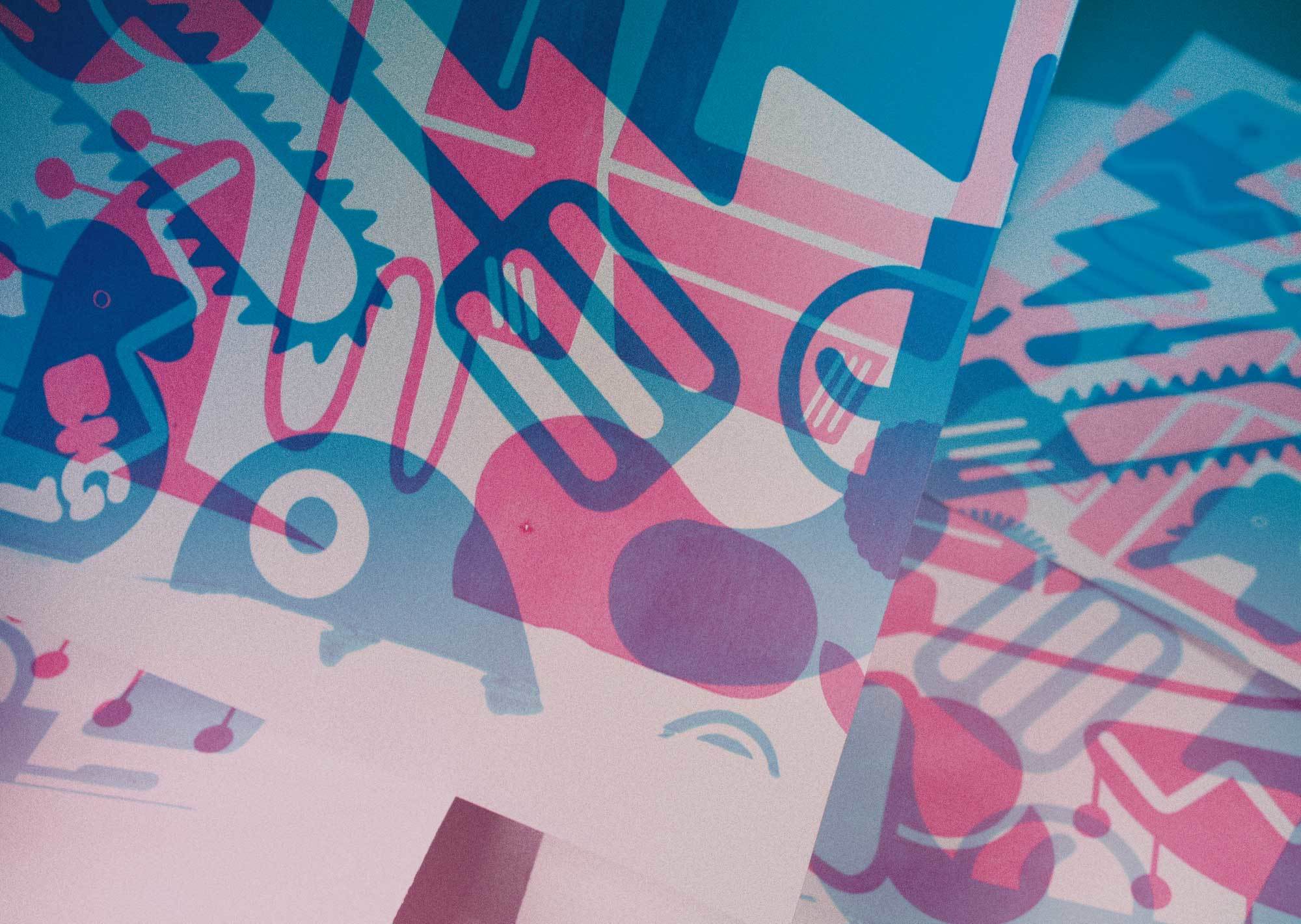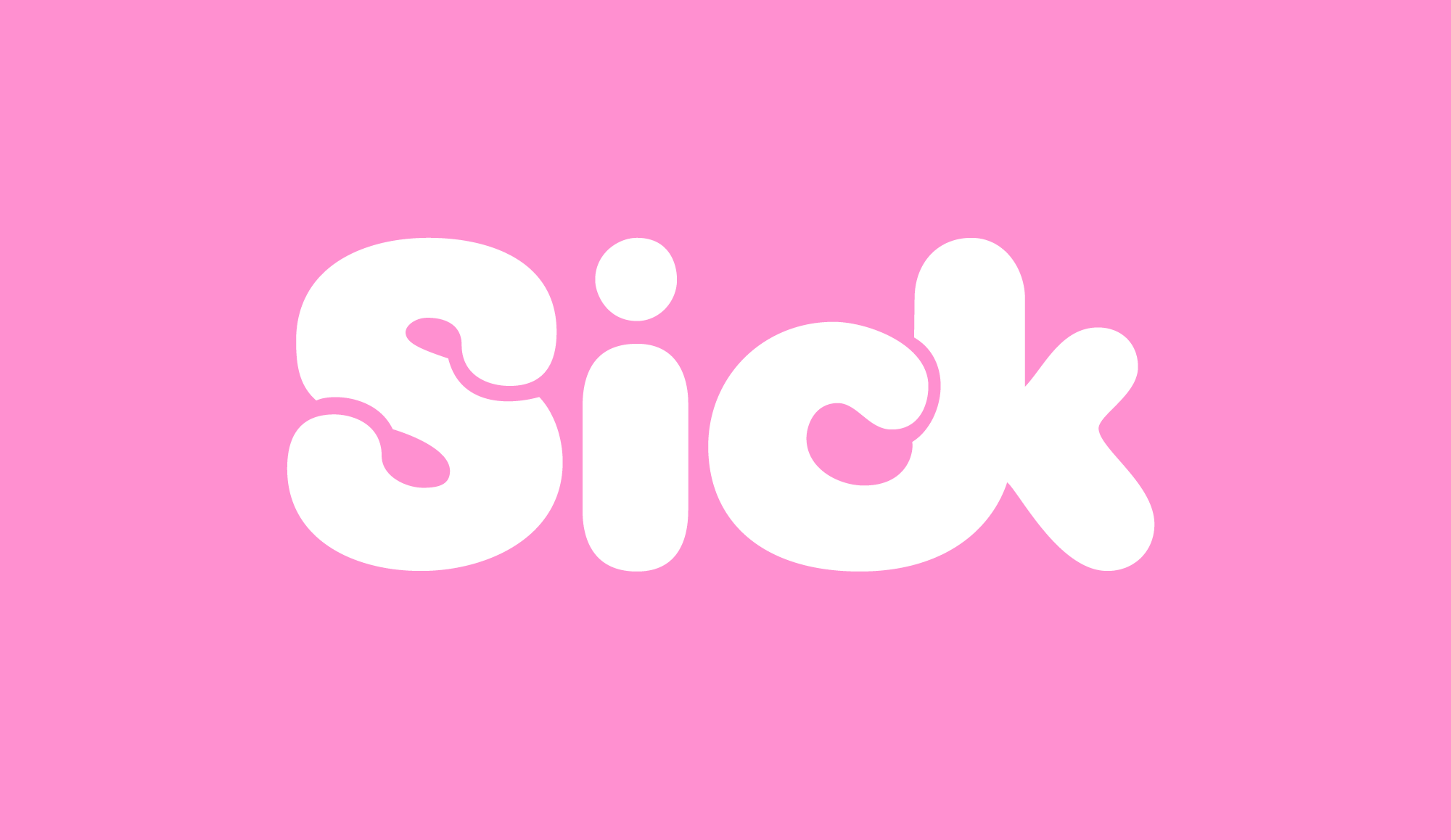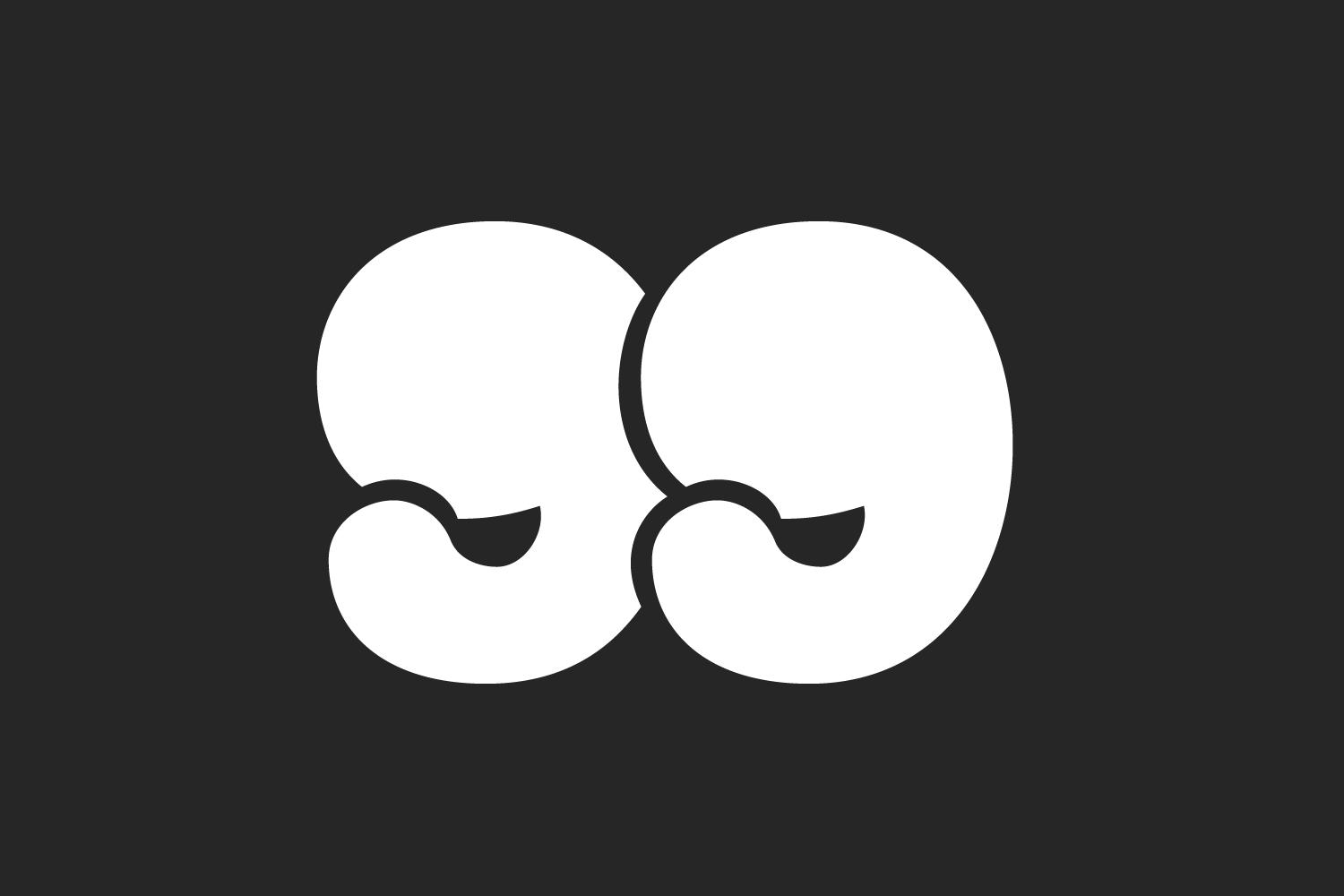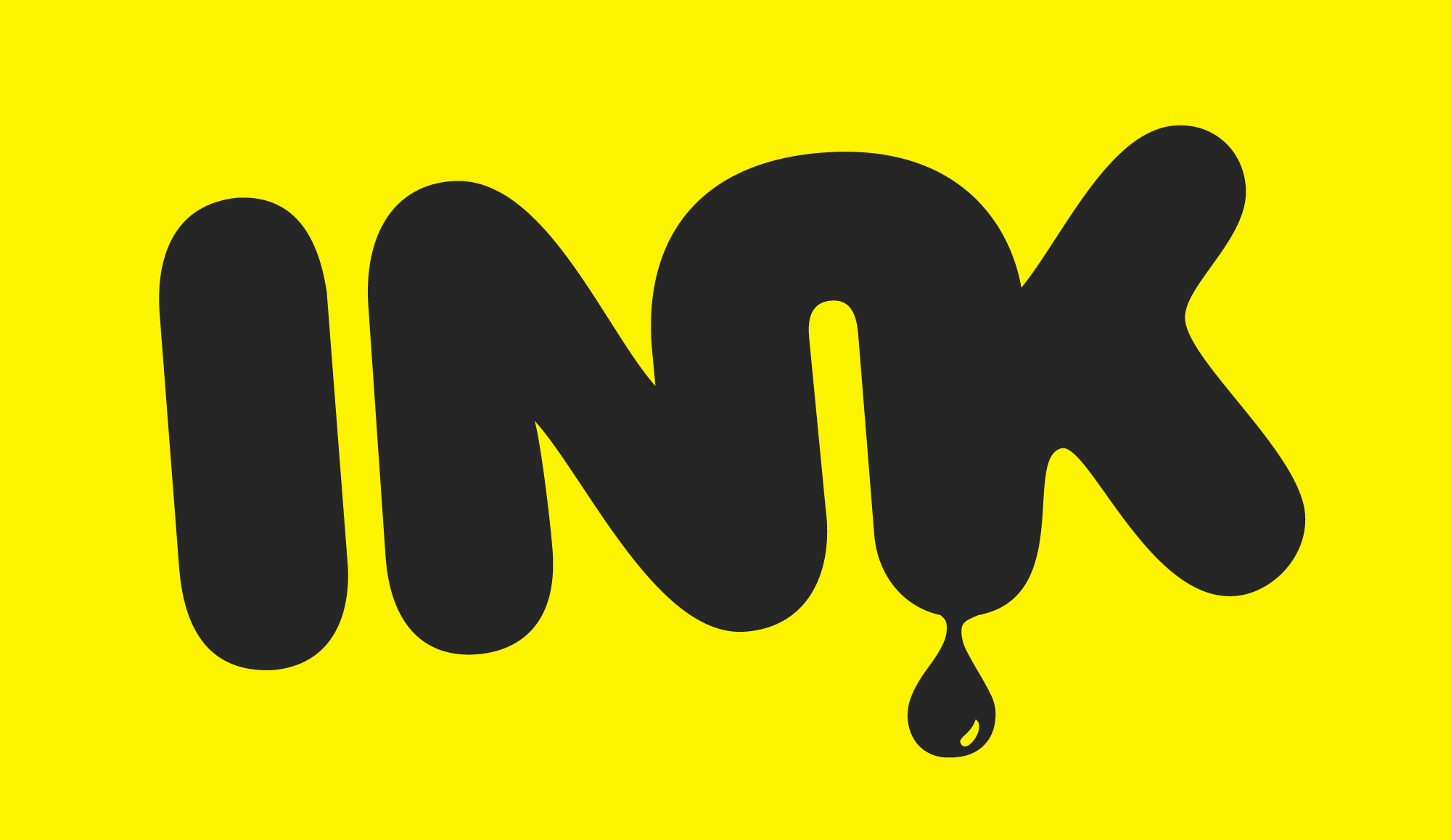
Snoogle
Snoogle is a friendly, round display typeface. Its character set contains 99 ligatures, which may be automatically implemented in OpenType-savvy applications. These give Snoogle the feeling of a script face, as opposed to normal rounded types. Snoogle’s text variant is complimented by a Dingbats font, including further design elements as well as pictogram figures.
Snoogle contains 99 Dingbats fitting to the visual language of the typeface
… and 99 super ligatures creating a unique and scripty look.
Discretionary Ligatures
Sometimes a typeface contains a set of special designed ligatures which are not made up to solve unwanted collisions but to give a unique connection of certain characters, resulting in a carefulness form of the words. This font family is equipped with a set of discretionary ligatures which can be manually switched on and off with the help of the Opentype features.